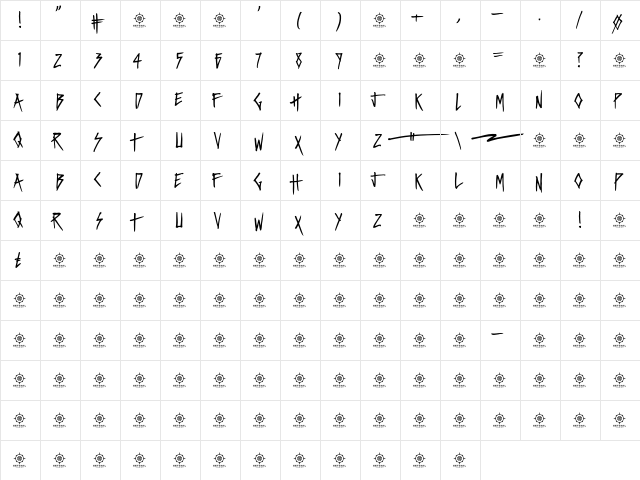
Violent Desire Regular
| Foundry | Set Sail Studios |
| Designer | Set Sail Studios |
Design Context for Violent Desire Typeface
Violent Desire is a composed and adaptable typeface that performs quietly and consistently across a wide range of design contexts.